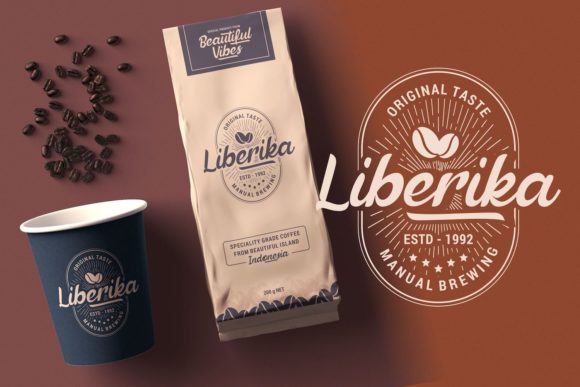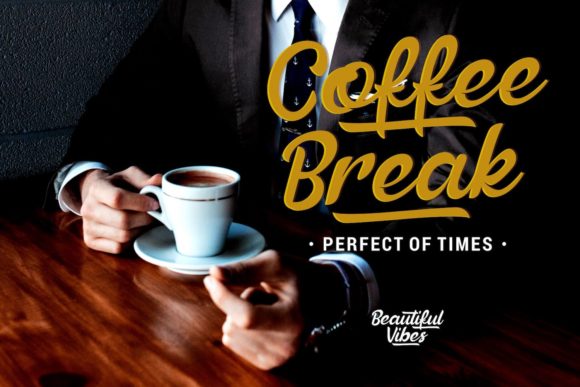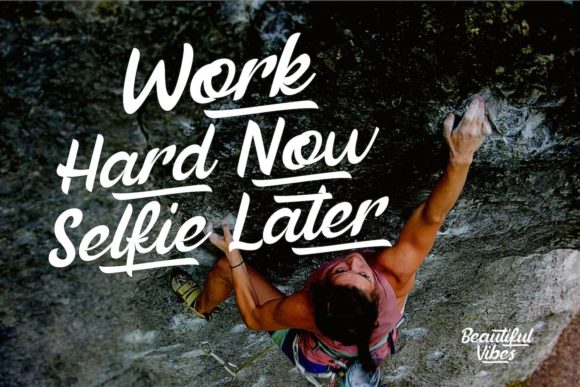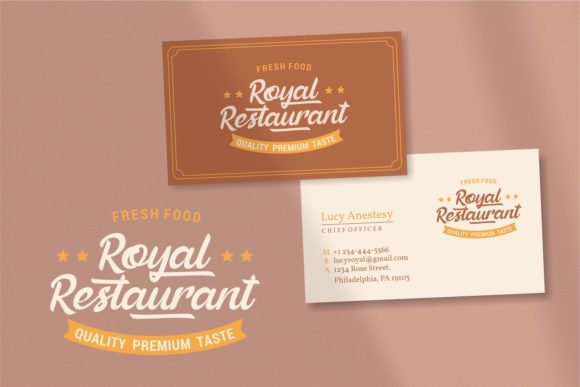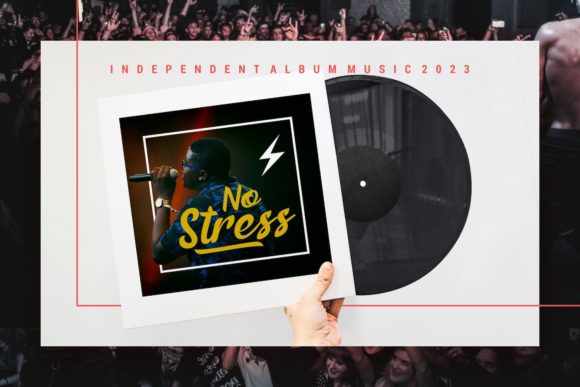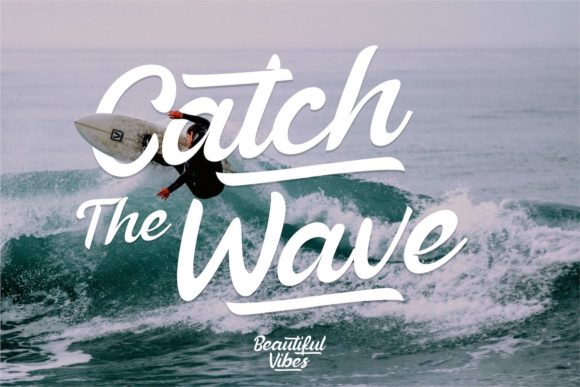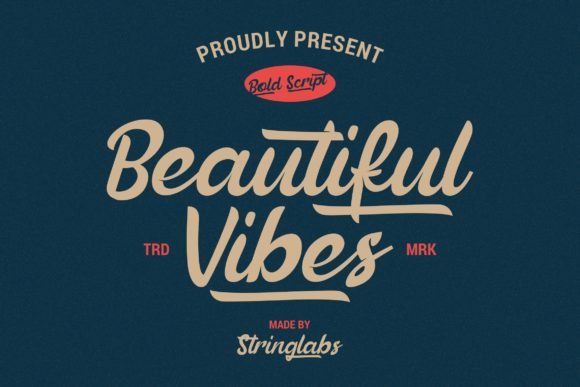
The Perfect Script for Your Next Design Project
Have you ever been working on a design project and suddenly felt the urge to create something truly special? Maybe it was a client’s request, a personal passion project, or just a burst of creative energy. Whatever the spark, it’s moments like these that remind us why we love being designers. And what better way to capture that magic than with the perfect font?
That’s where the Beautiful Vibes Font comes in – a gorgeous and nostalgic script with a retro vibe that’s sure to transport your designs to a bygone era. Whether you’re looking to add a touch of whimsy, elegance, or playfulness, this font has got you covered. With its unique charm and versatility, it’s no wonder designers are turning to the Beautiful Vibes Font to elevate their work and leave a lasting impression.
Beautiful Vibes Font Key Features
- Font Family: Beautiful Vibes, with multiple weights and styles available (Light, Regular, Bold, Italic, etc.)
- Character Set: Supports a wide range of languages, including Latin, Cyrillic, and Greek scripts, making it suitable for global designs
- Unique Characteristics: Features a unique, hand-drawn aesthetic with subtle imperfections, giving it a personal and artistic feel
Designer Review: Beautiful Vibes Font
First off, I’d like to say that Beautiful Vibes Font has a lot going for it. The ✨ personality of the font is undeniably charming and whimsical. The varied letterforms and playful flair add a touch of elegance to any design project. The font also excels in capturing the feel of carefree, bohemian vibes that are so trendy right now.
The font has a wide range of applications, from digital interfaces to print materials. The ✨ flexibility of Beautiful Vibes Font makes it a great choice for creatives who want to add some visual interest to their work.
- ✨ Unique and charming personality
- ✨ Varied letterforms add visual interest
- ✨ Great for capturing bohemian, carefree vibes
- ✨ Wide range of applications
- ⚠️ The font may not be suitable for formal or professional projects
- ⚠️ Some letterforms may be difficult to read in certain contexts
- ⚠️ The font’s playful nature may not be to everyone’s taste
Overall, Beautiful Vibes Font is a great addition to any designer’s toolkit. While it may have some limitations, its unique charm and versatility make it a great choice for creatives who want to add some visual interest to their work.
The Beautiful Vibes font is ideal for creative projects, such as:
- Food and lifestyle blogs
- Artistic quotes and posters